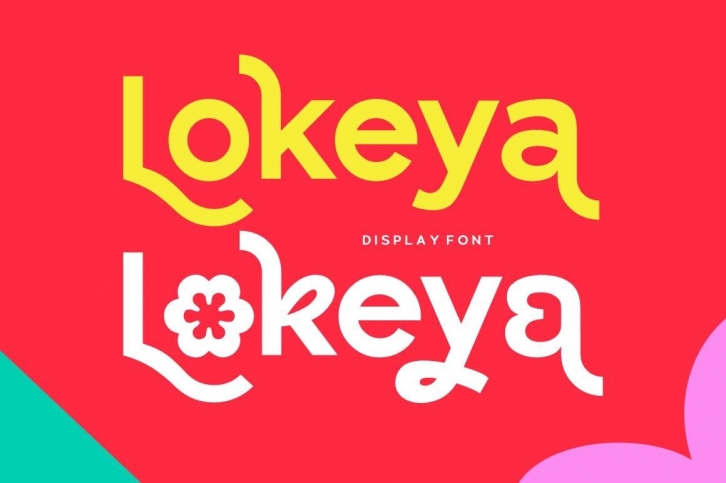
Lokeya is a natural and clean display font. It is the best choice for creating eye-catching logos, branding, and quotes. Every letter has a unique and beautiful touch, which will make your design come alive!